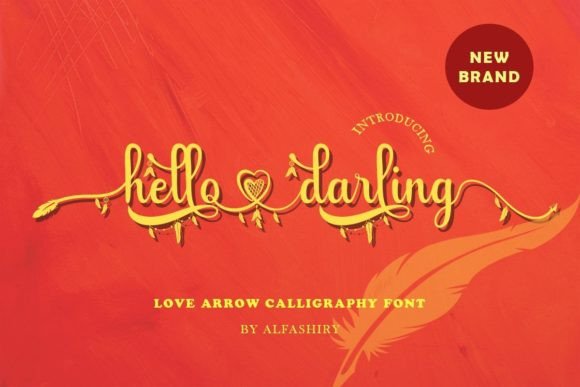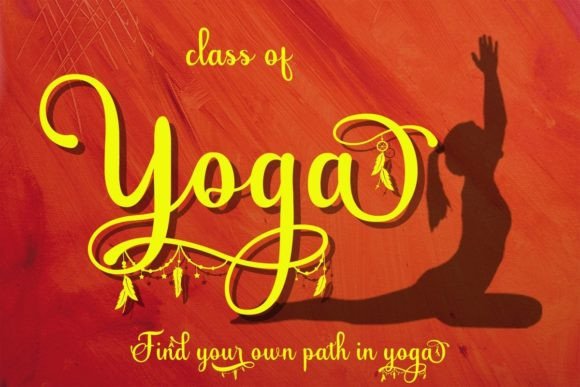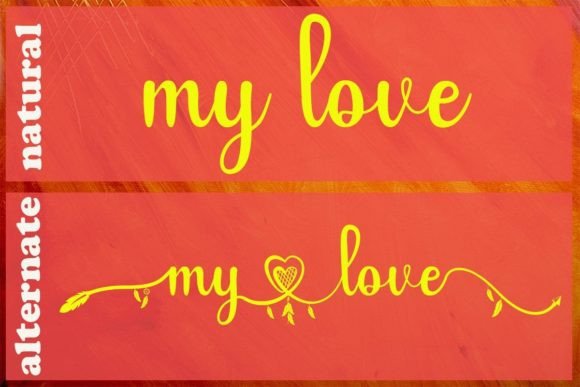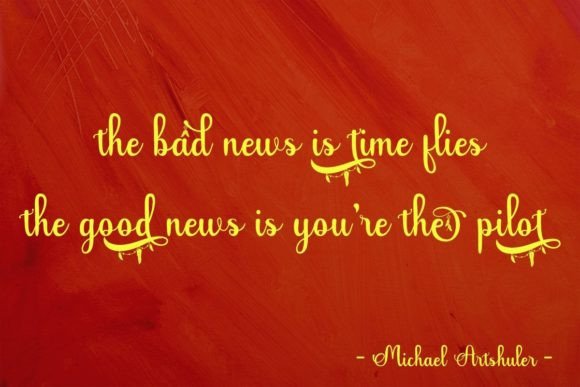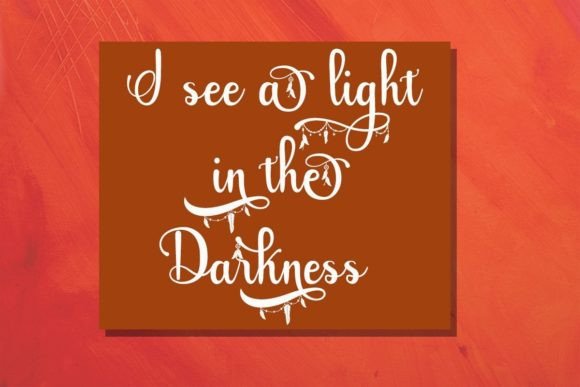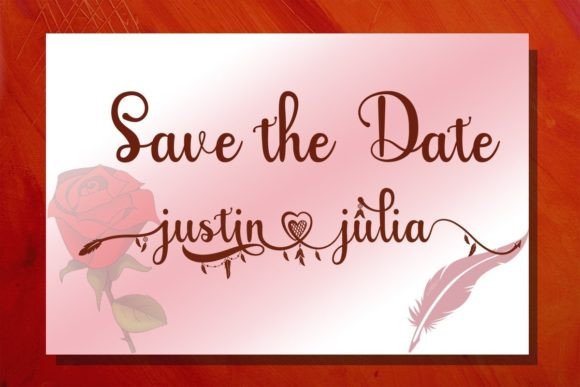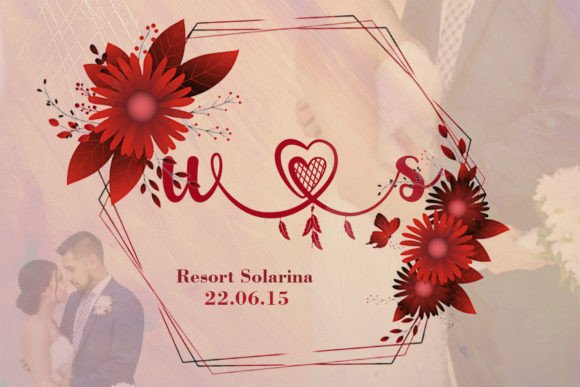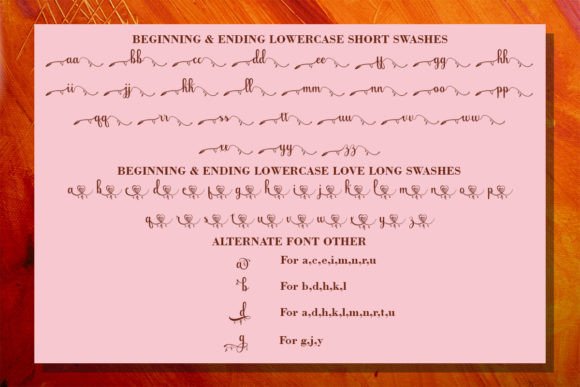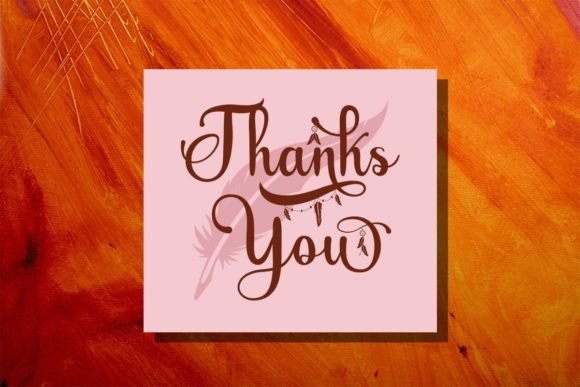
Hello Darling Font
About Hello Darling Font
Hello Darling is a stunning and distinctive handwritten font that stands out with its unique features, including shaped hearts and Indian arrows. This font exudes authenticity and charm, making it a perfect choice for a wide range of creative projects.
The font’s special elements, such as shaped hearts and Indian arrows, add a touch of romance and cultural flair to your designs. Whether you’re creating beautiful wedding invitations, stationary art, engaging social media posts, or cute greeting cards, Hello Darling provides the perfect blend of elegance and creativity.
One of the standout features of Hello Darling is its PUA encoding, which grants easy access to a plethora of amazing glyphs and ligatures. This accessibility ensures that you can effortlessly incorporate the font’s beautiful and unique characters into your designs, enhancing their visual appeal and making them truly one-of-a-kind.
With Hello Darling, you have the opportunity to infuse your projects with a touch of authenticity and creativity. Its handwritten style, combined with the special heart shapes and Indian arrows, adds a delightful and personalized feel to your designs. Whether you’re planning a wedding, creating social media content, or sending heartfelt greetings, Hello Darling will elevate your creations and leave a lasting impression on your audience. Embrace the font’s beauty and uniqueness to transform your creative vision into captivating and visually stunning artworks.